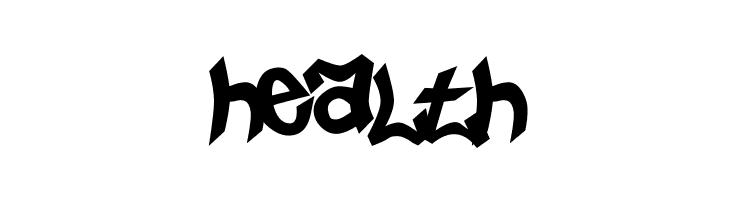
• dahlia
An elegant, flowing script font with graceful curves and smooth strokes.
• Daisy Mae
• Dalmata Dream
A playful, spotted font with a whimsical and decorative style.
• Dalmata Dream Bold
A bold, decorative font with playful, spot-like patterns.
• Dalmata Dream Bold Italic
A bold, italicized font with a playful, artistic style and irregular strokes.
• Dalmata Dream Italic
A playful, italicized font with a Dalmatian-inspired spotted pattern.
• DamagedSataLight
A sharp, edgy font with a distressed, dynamic appearance.
• DamagedSataLightExtended
A decorative and artistic font with high contrast and intricate details.
• Damu life
A bold, graffiti-inspired font with sharp angles and dynamic lines.
• Dancing Marker
A playful, handwritten font with a lively, marker-like style.